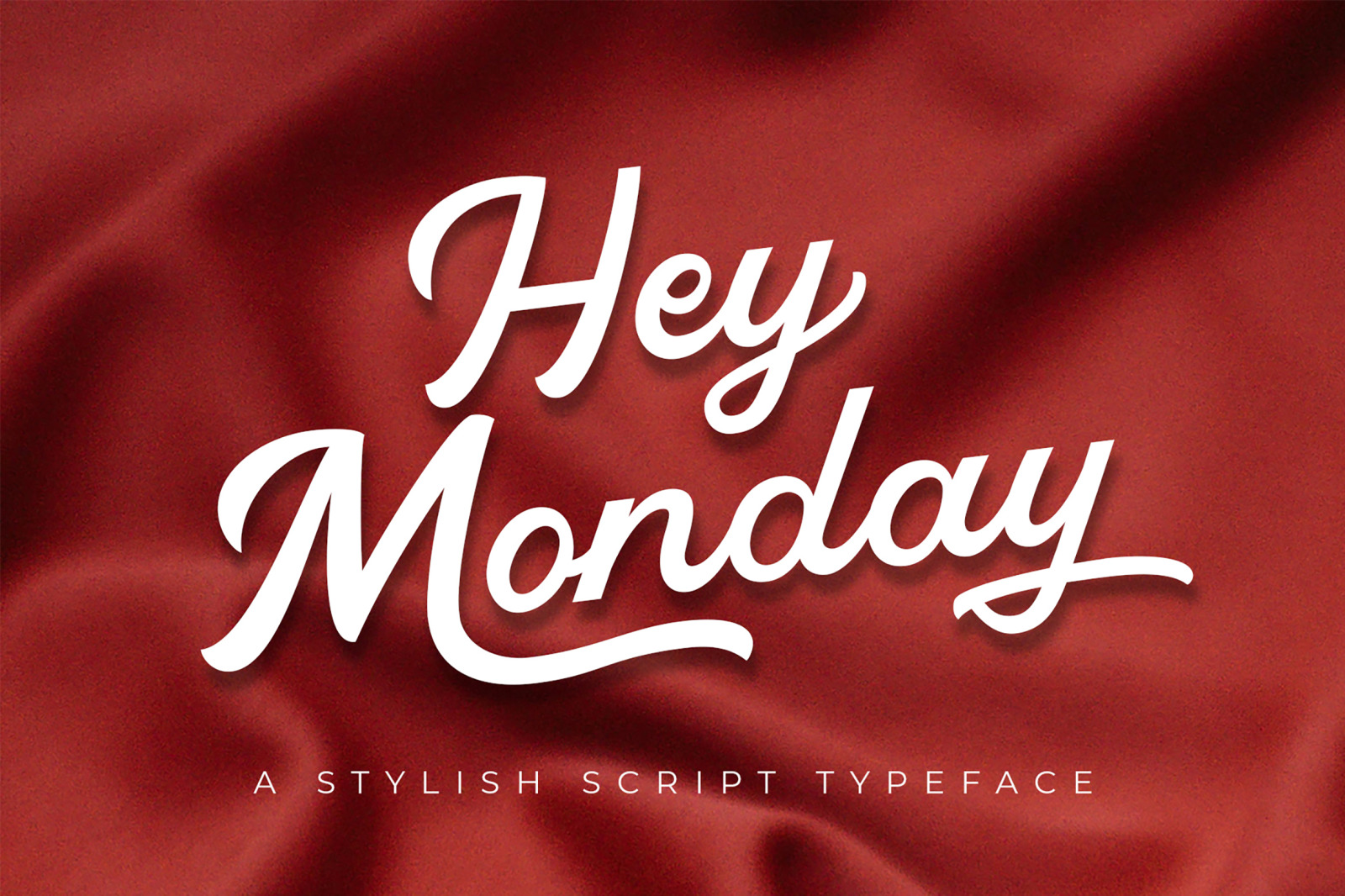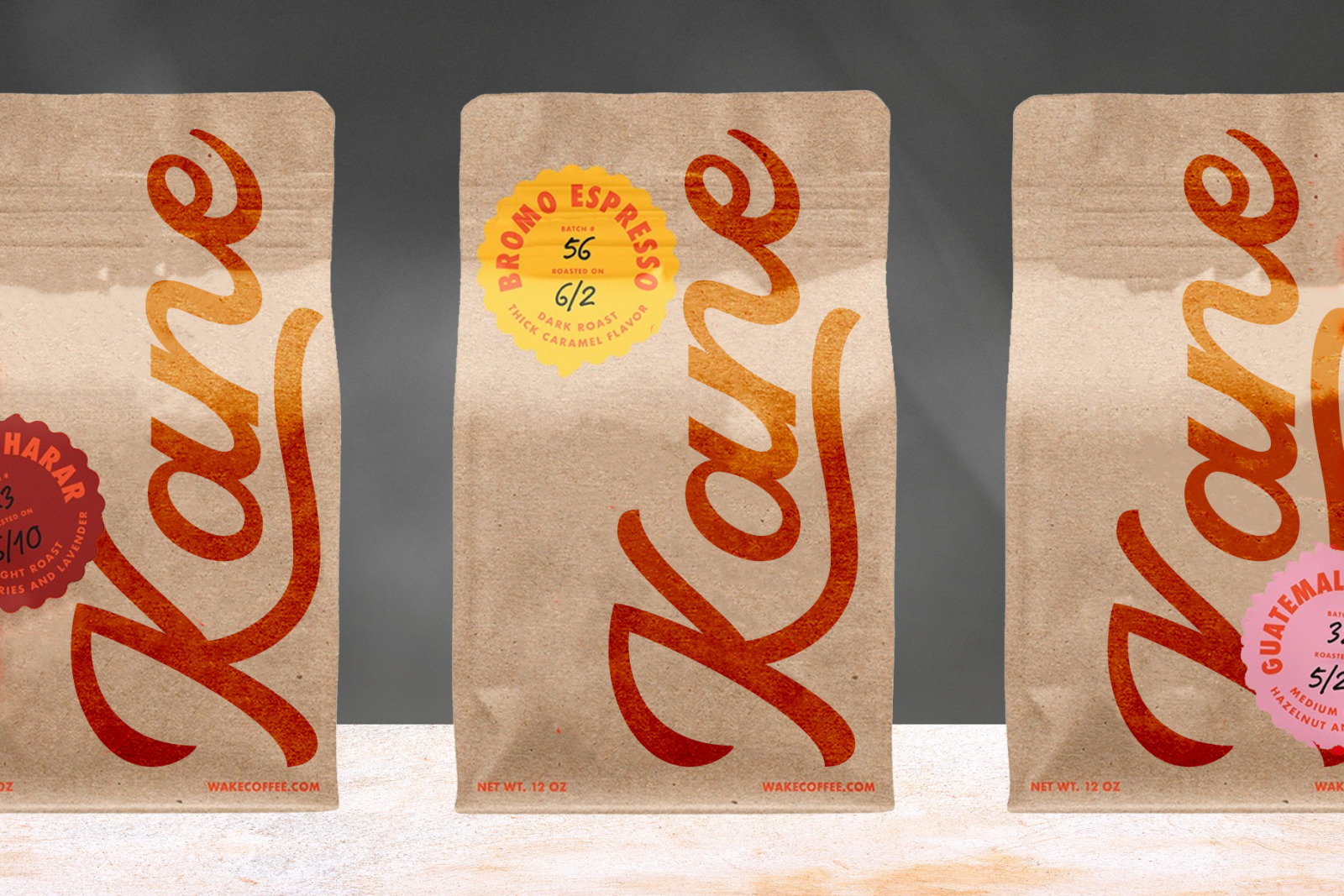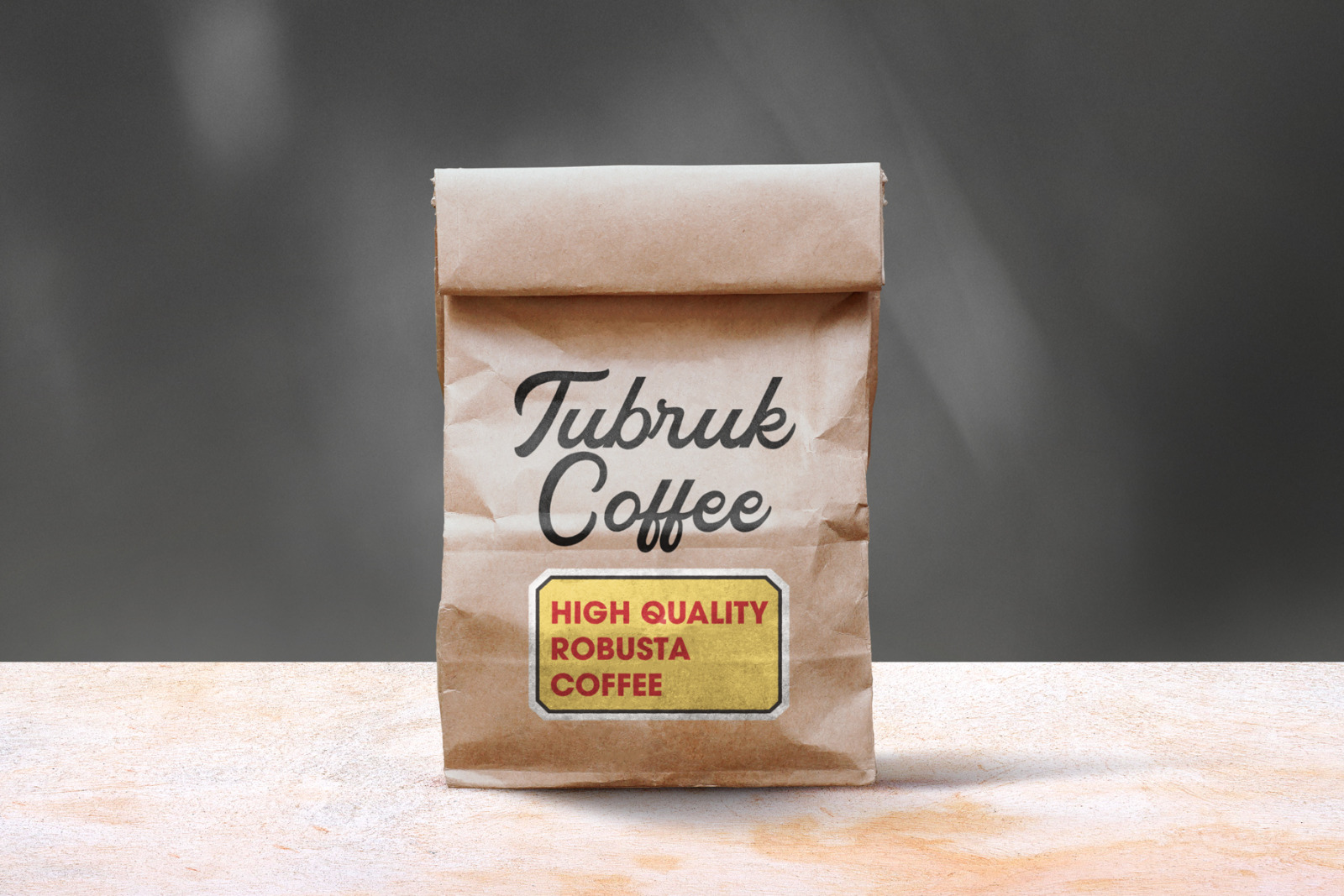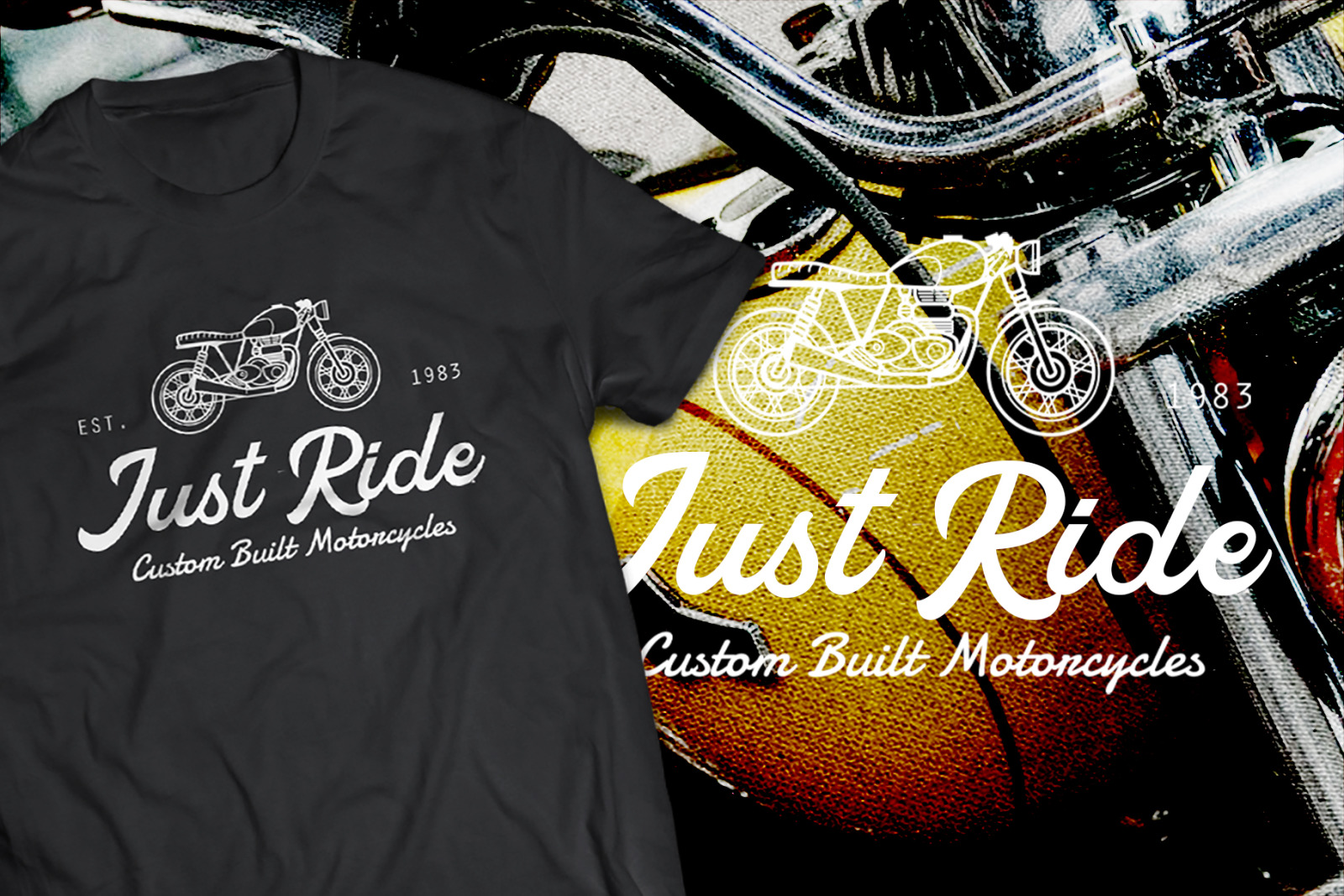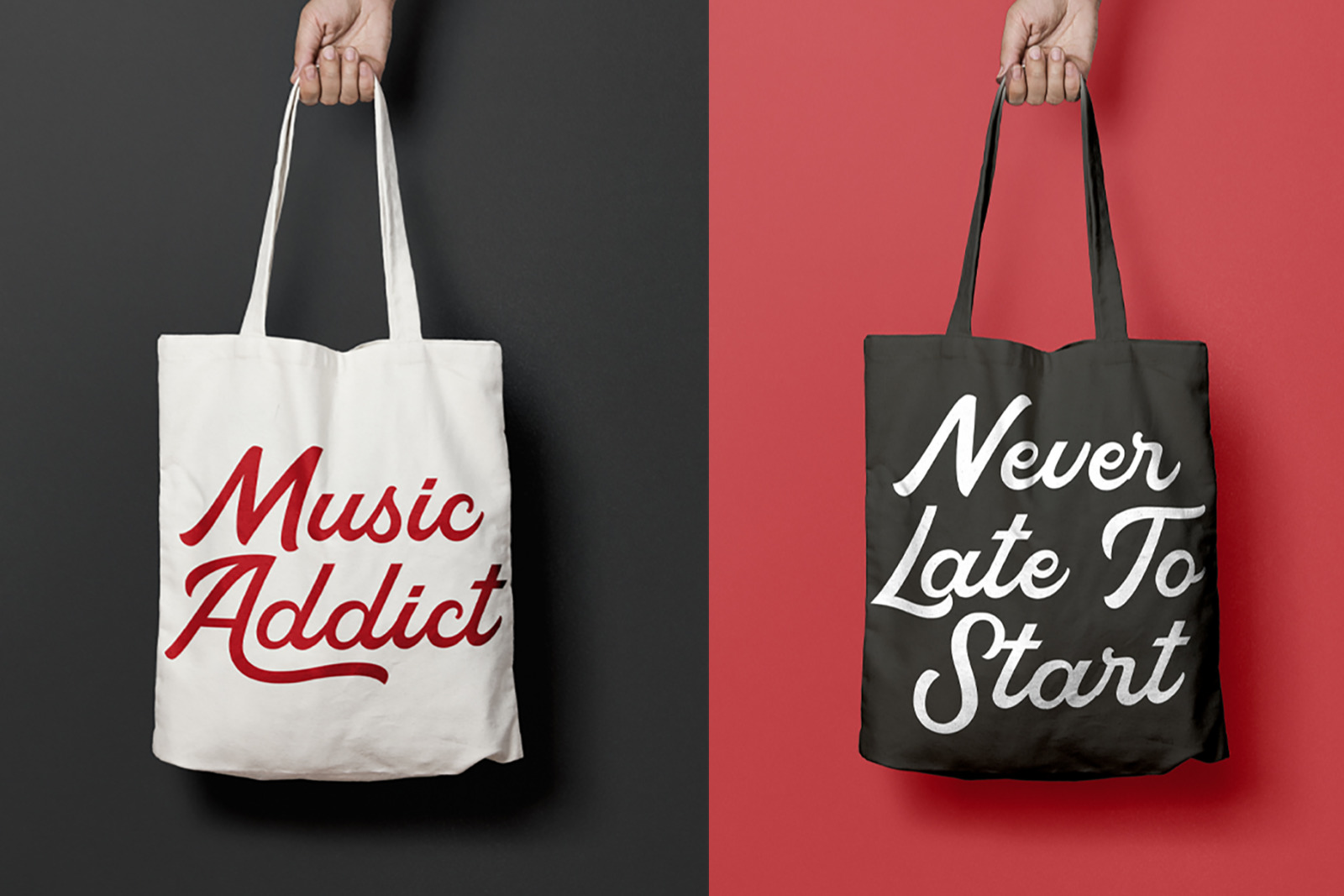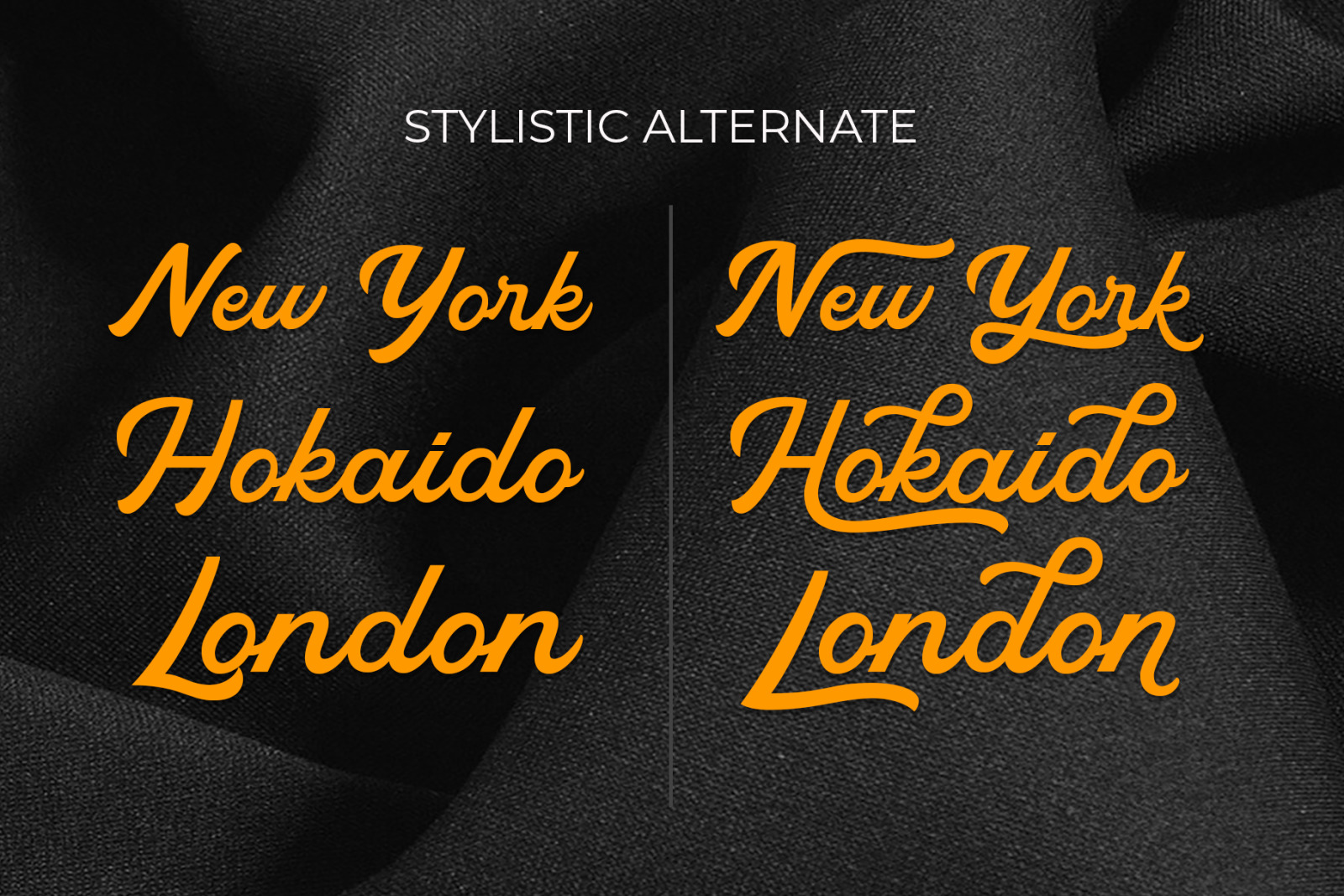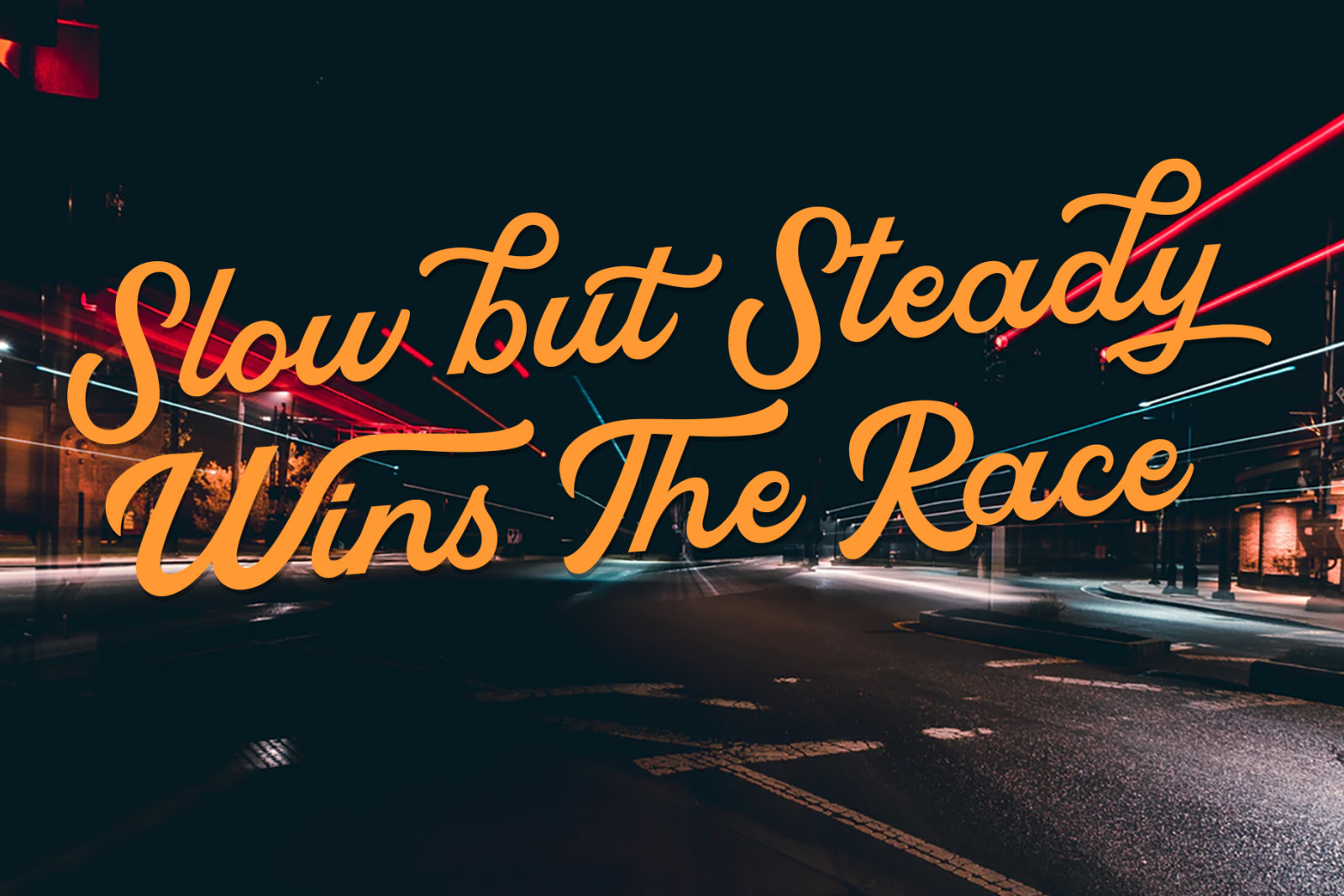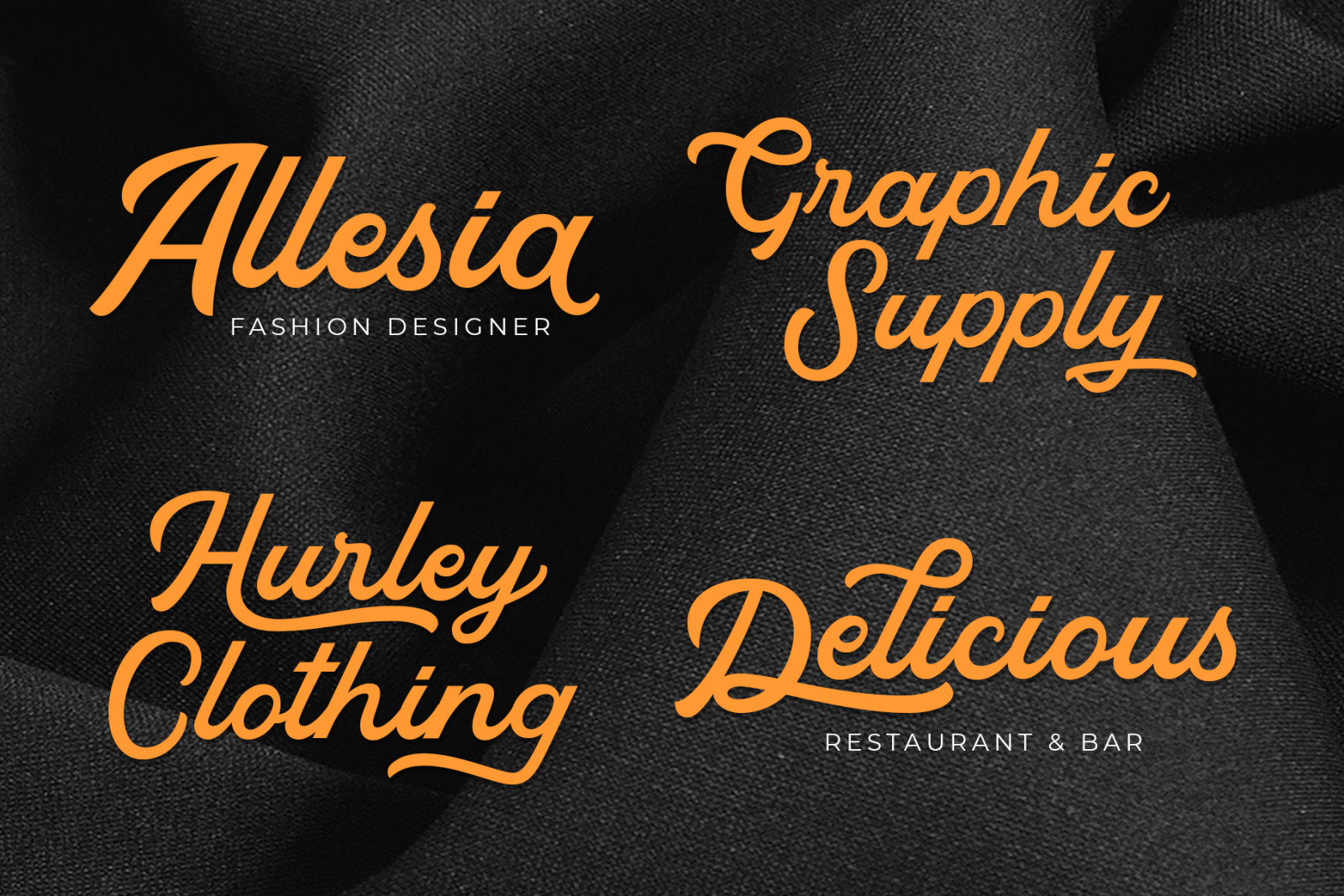
HeyMonday Stylish Script Font
A stylish, modern and beautiful hand-lettered script font with an elegant feel. HeyMonday font is perfect for display projects such as quoted text, product name, logo, presentation, coffee-theme, and product packaging and much more. It's also perfect for fashion and beauty themed - or a stylish text overlay to any background image.
+ Uppercase & Lowercase letters
+ Stylistic Alternate